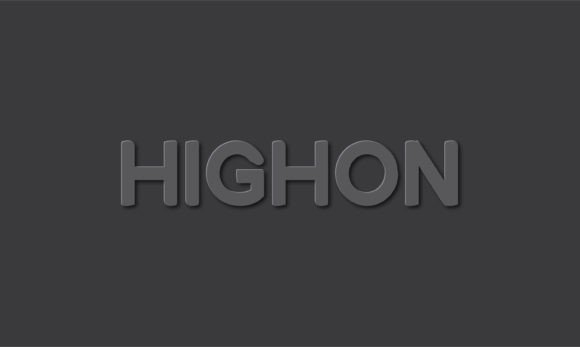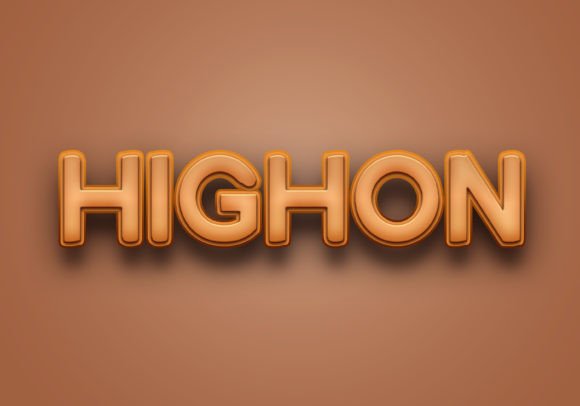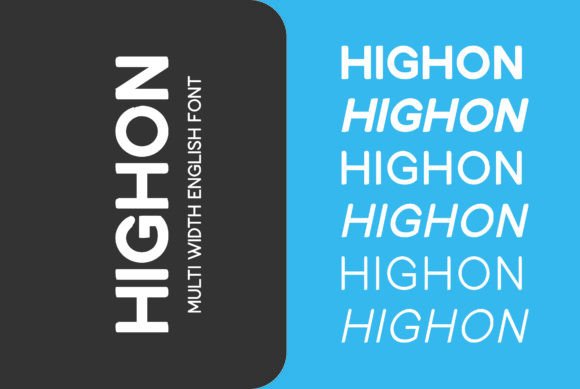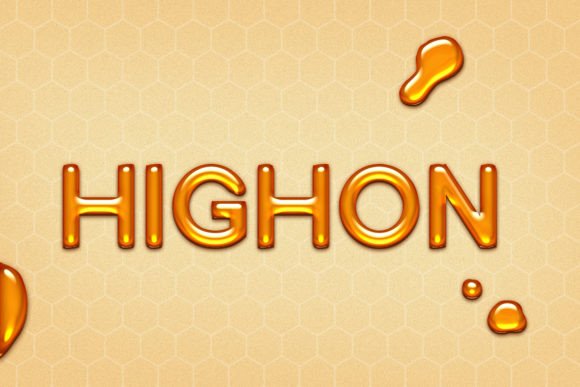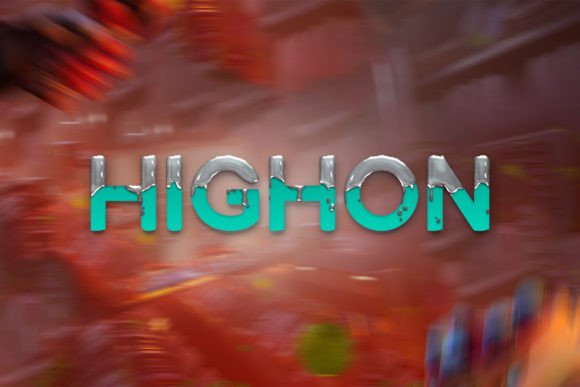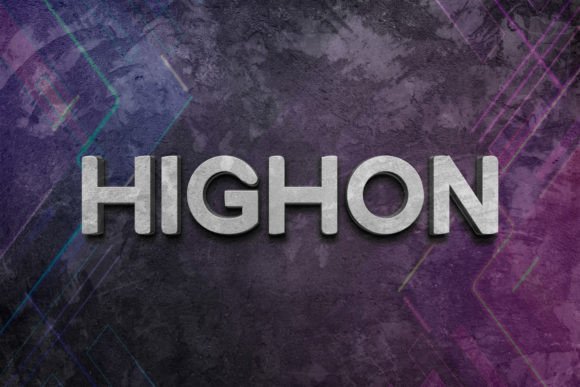
Introduction to Highon Font
Have you ever been in the zone while working on a creative project, and suddenly, the perfect font pops into your head? It’s like a rush of adrenaline, a spark that ignites the entire design process. For many designers, that moment is what makes all the hard work worth it. And that’s exactly what the Highon Font is designed to evoke – a sense of excitement and adventure, reminiscent of the thrilling games that inspired its creation.
About Highon Font
As a design resource, the Highon Font is a game-changer. Its unique blend of modernity and edge makes it a standout choice for any project, from logos to landing pages. And the best part? It’s available for free download, complete with a transparent background that lets your design shine. Whether you’re working on a high-quality design or just starting out, the Highon Font is a valuable addition to your toolkit.
Get Ready to Take Your Design to the Next Level
Key Features of Highon Font
- High-quality design resource with a transparent background, ideal for creative projects.
- Unique and stylish design that can add a touch of sophistication to any creative project.
- Designed to be highly legible, even at small sizes, making it perfect for titles, headings, and other display typography.
- Easy to customize and modify, allowing designers to experiment with different styles and effects.
Honest Review: Highon Font
As a designer, I’m always on the lookout for high-quality design resources to enhance my creative projects. Recently, I came across the Highon Font, which has been making waves in the design community. I was excited to put it to the test and share my honest review with you.
- ✨ The design is modern and sleek, perfect for a variety of creative projects.
- ⚠️ The font library is relatively small, so users may not find as many styles and variations as they would with other fonts.
- ⚠️ Some users may find the font to be too minimalist, lacking in expressiveness.
Overall, I think the Highon Font is a solid addition to any designer’s toolkit. While it may not be perfect, it’s a great resource for those looking for a modern, high-quality font to enhance their creative projects.
Highon Font is a high-quality, free download that can elevate any creative project. With its sleek and modern design, this font is perfect for designers looking for a versatile resource.
Tips for Getting the Most Out of Highon Font
Use Highon Font with a transparent background to add a touch of elegance to your design. Experiment with different font sizes and styles to create a unique look. Use Highon Font in combination with other design elements to create a cohesive design.
Common Use Cases for Highon Font
Highon Font is perfect for a variety of creative projects, including: social media graphics, presentations, documents, logo design, and digital art. With its high-quality design and free download, Highon Font is a valuable resource for designers of all levels.